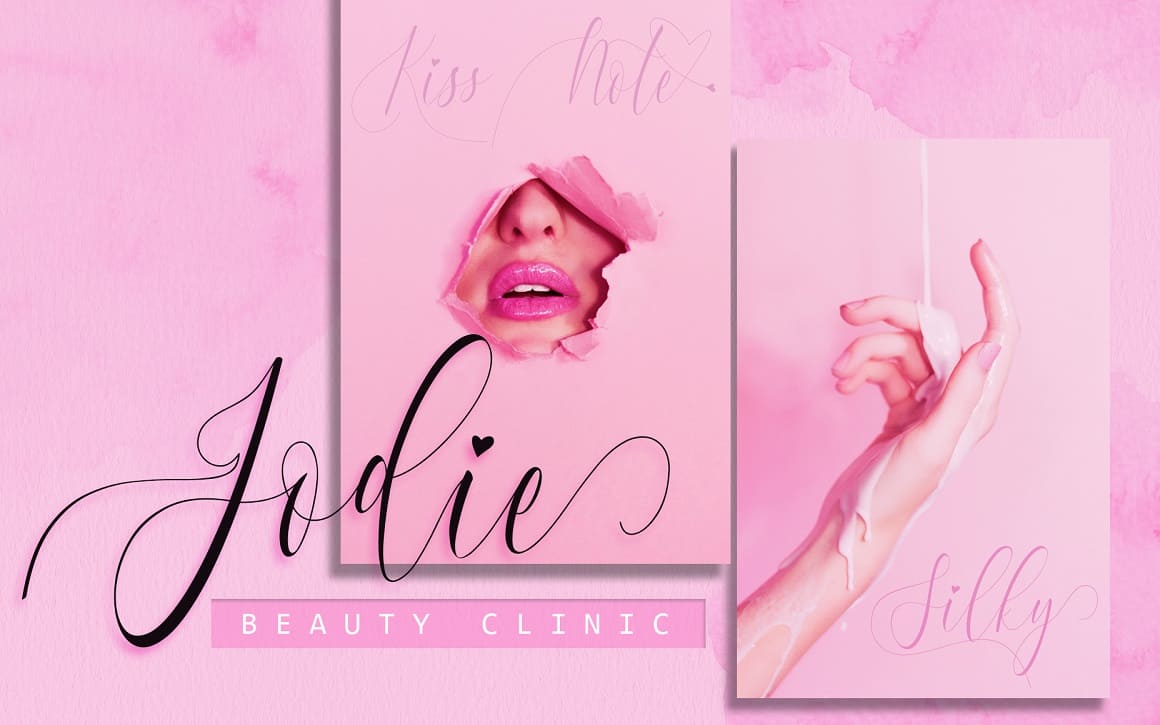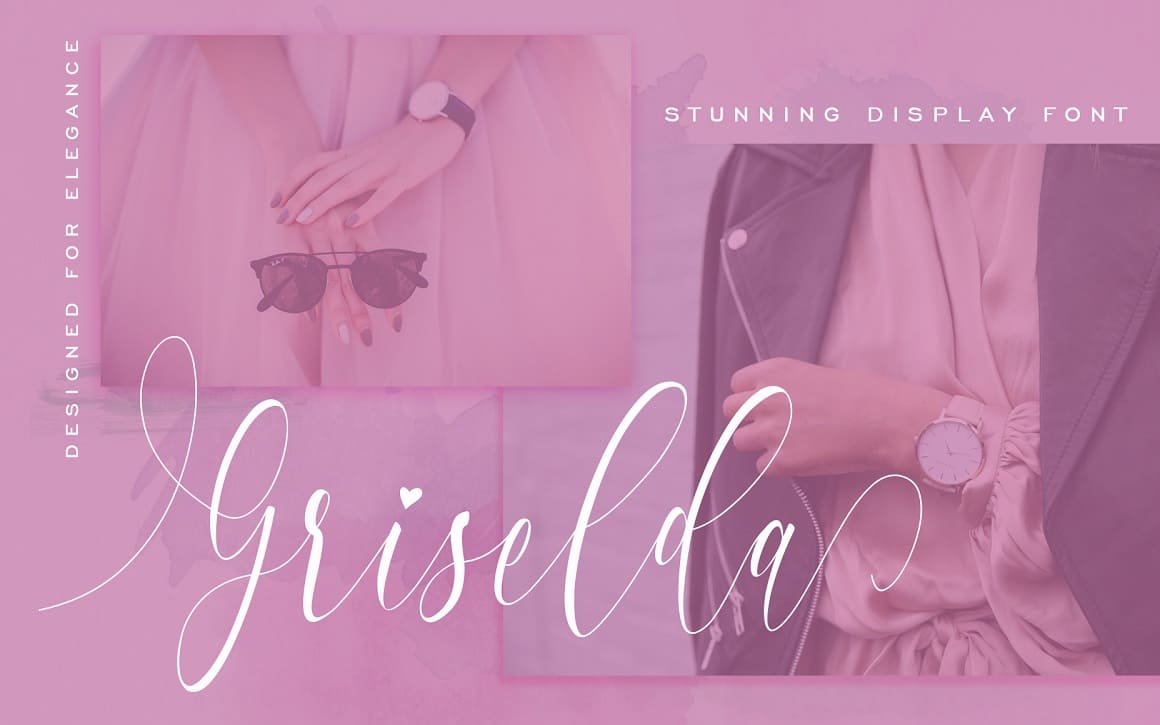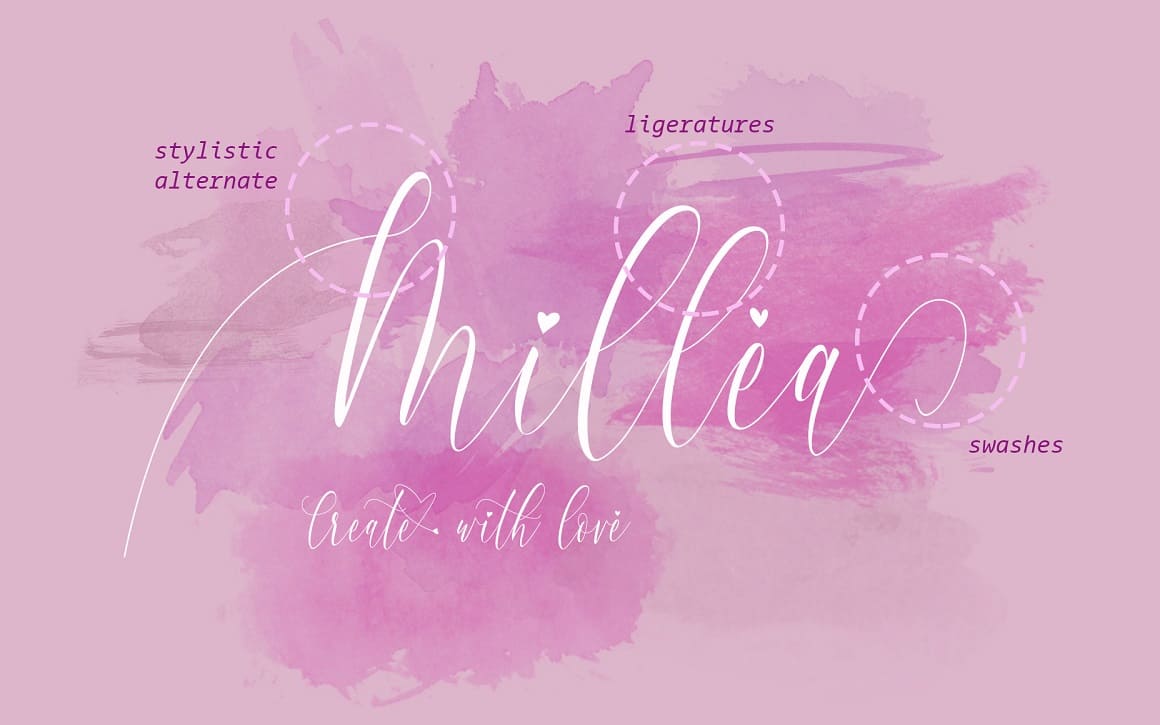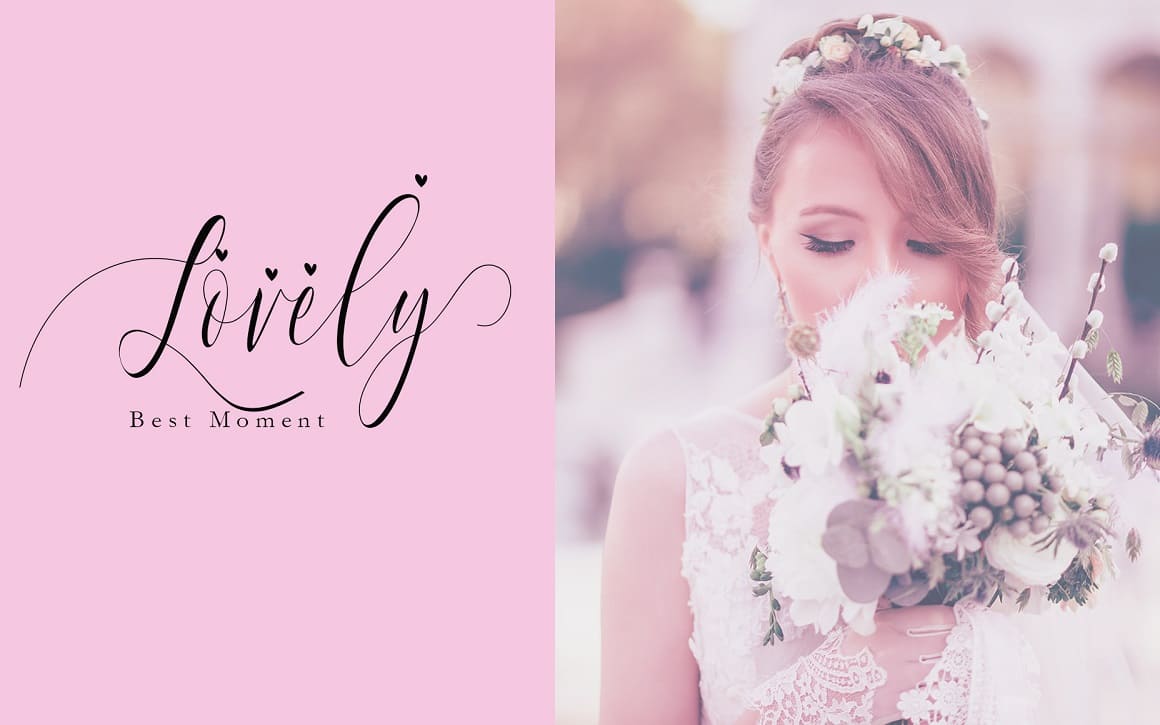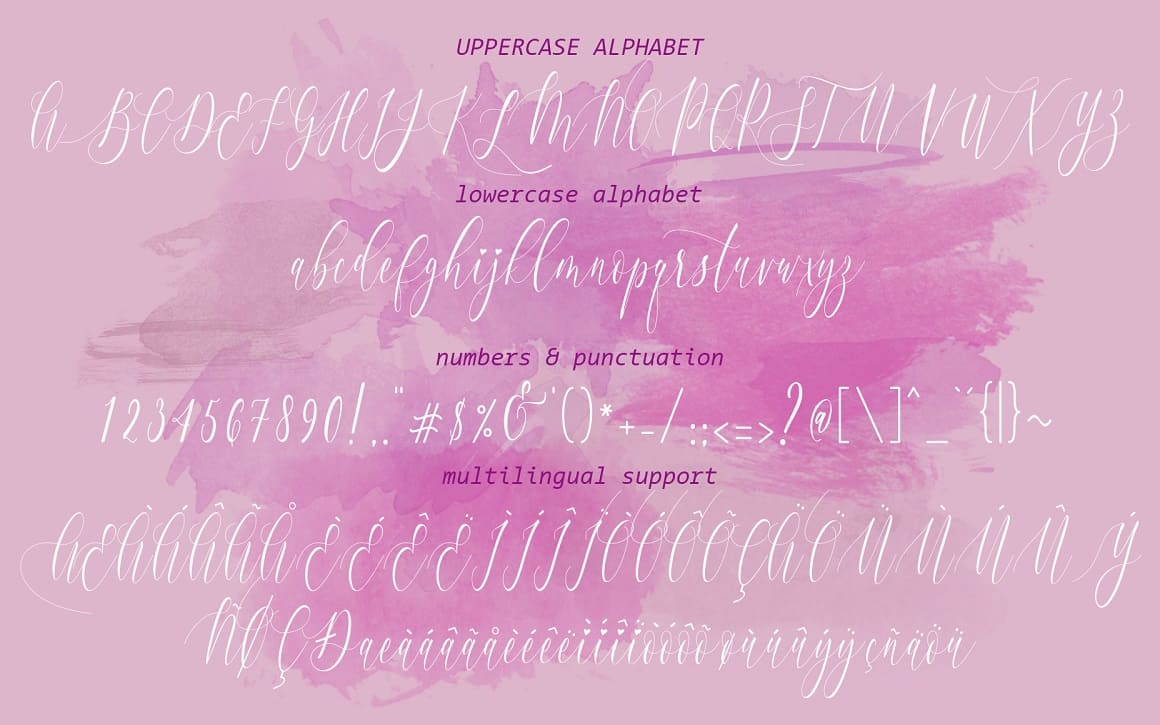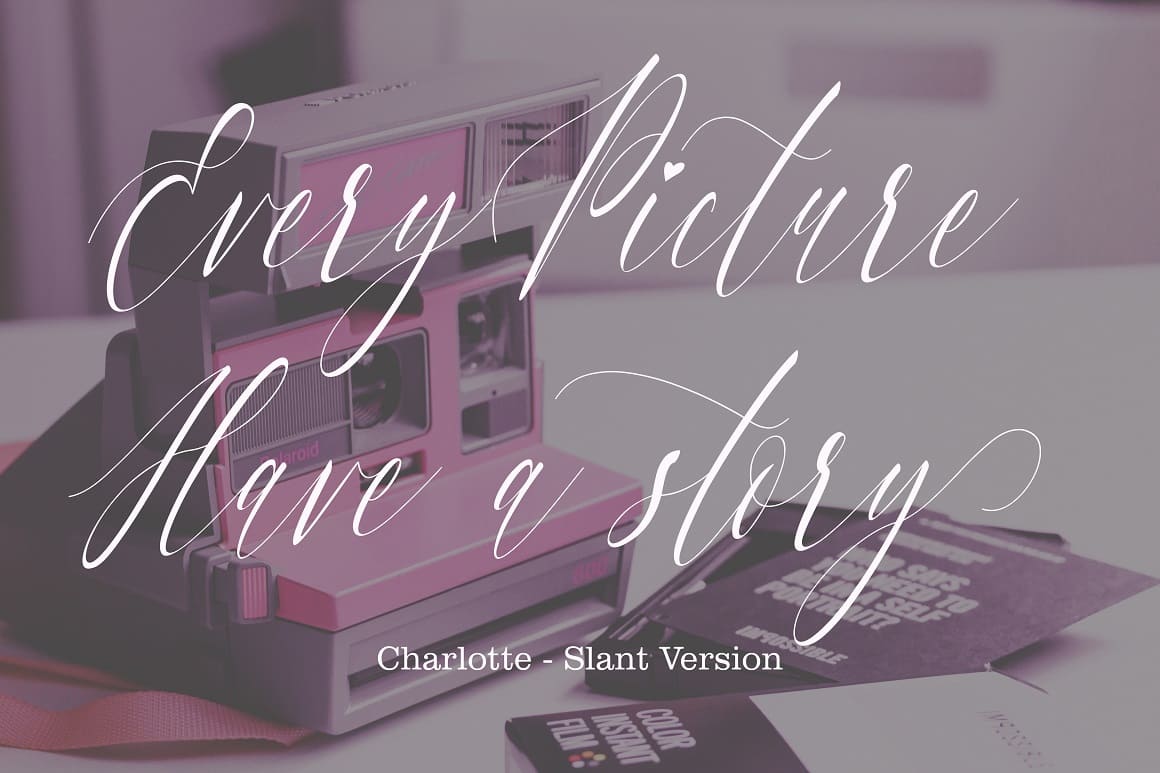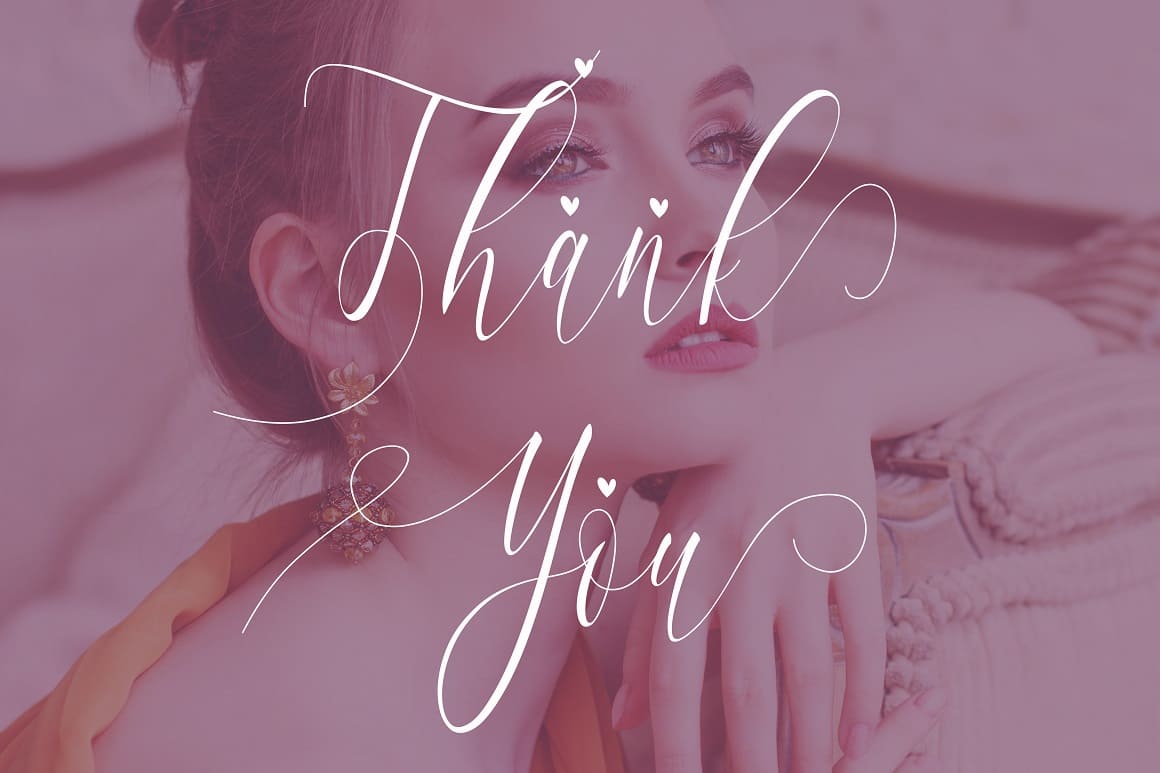
Charlotte Calligraphy is an elegant font with a warm heart. For those in need of an elegant and modern touch for your designs or branding, this font was created for you! No doubt! Charlotte was built with OpenType features and includes stylistic set alternates and some quirky ligatures.